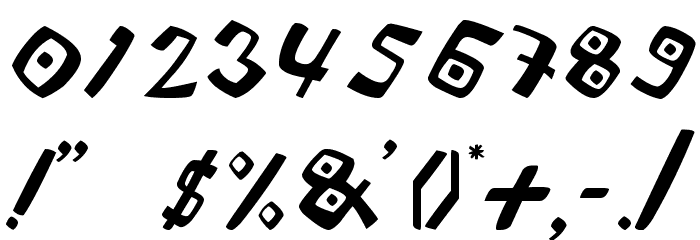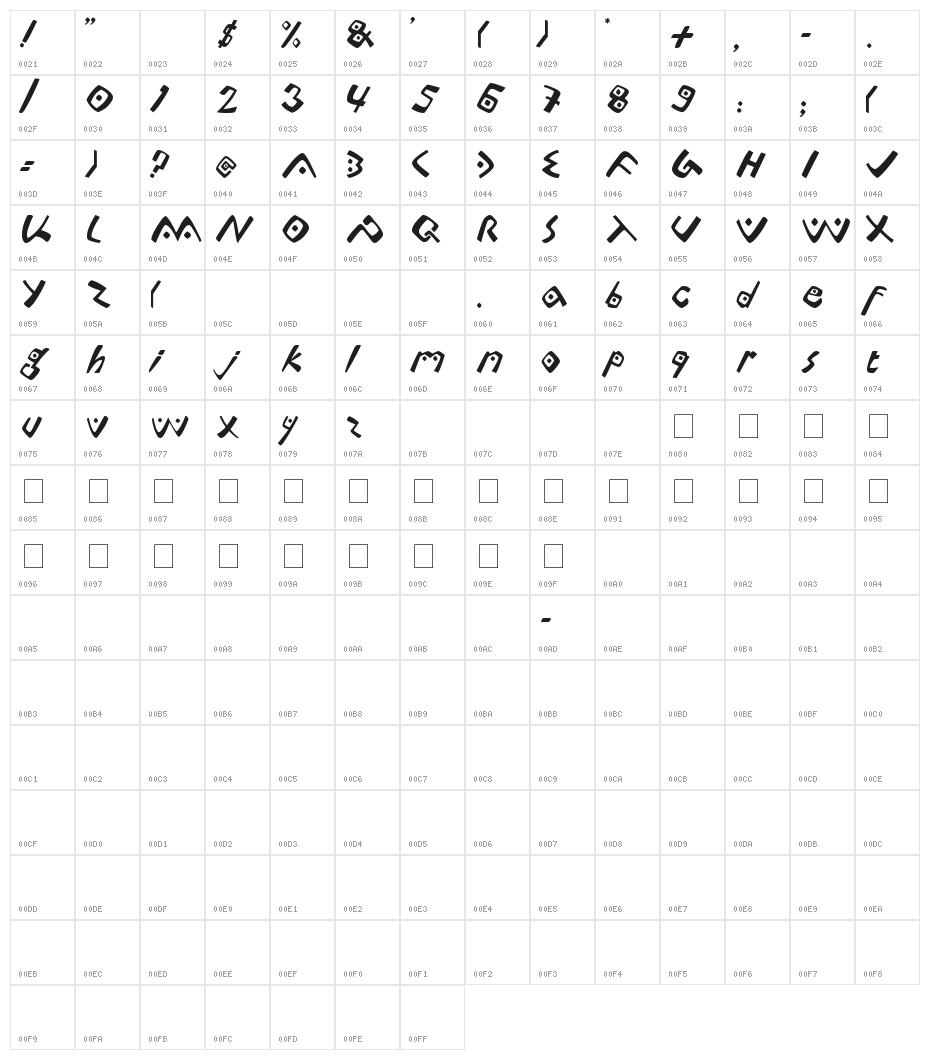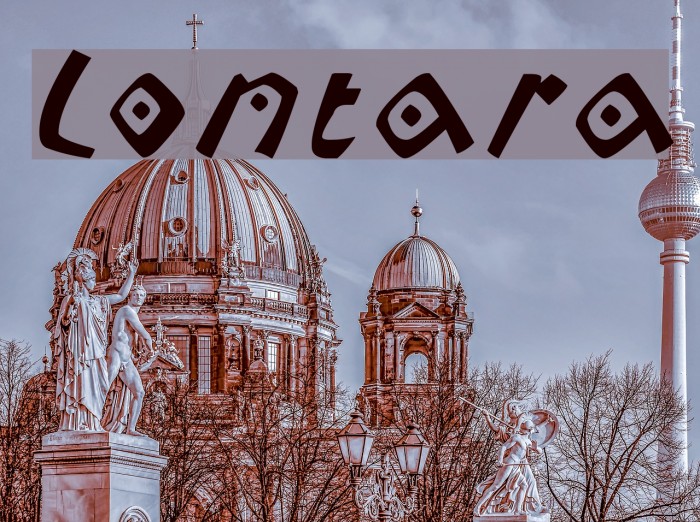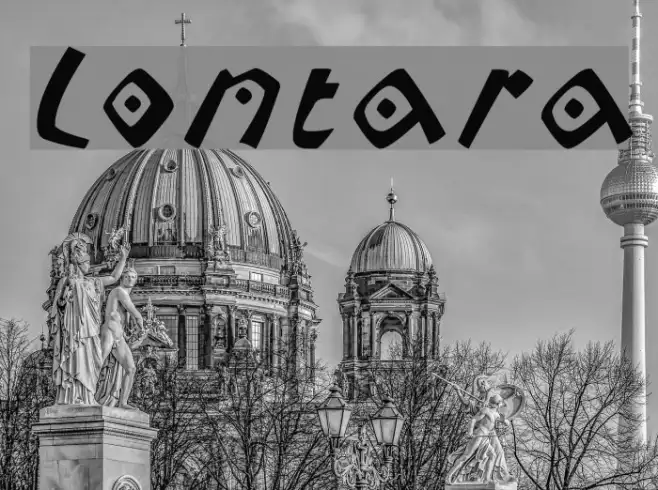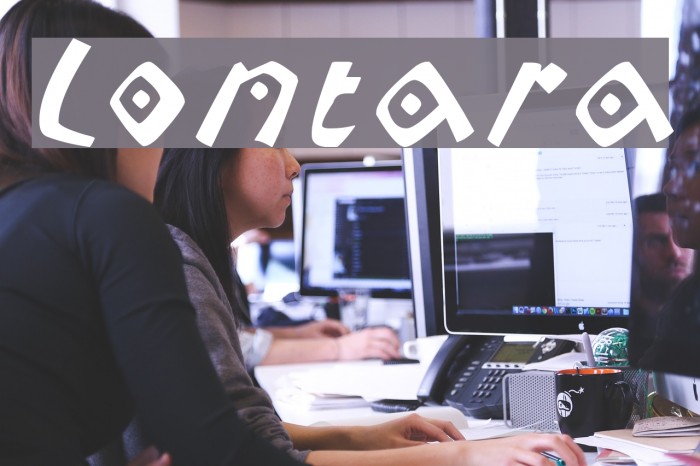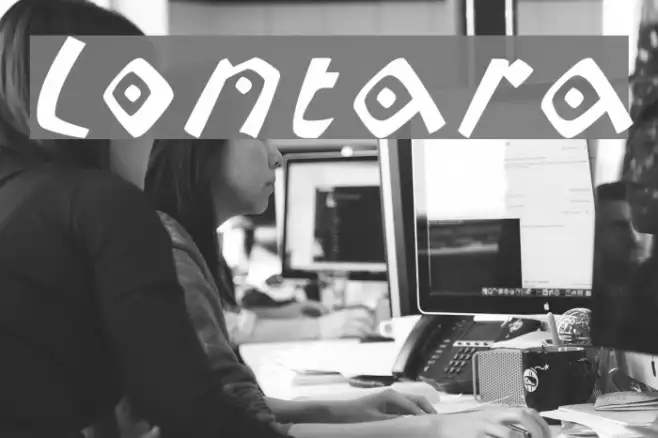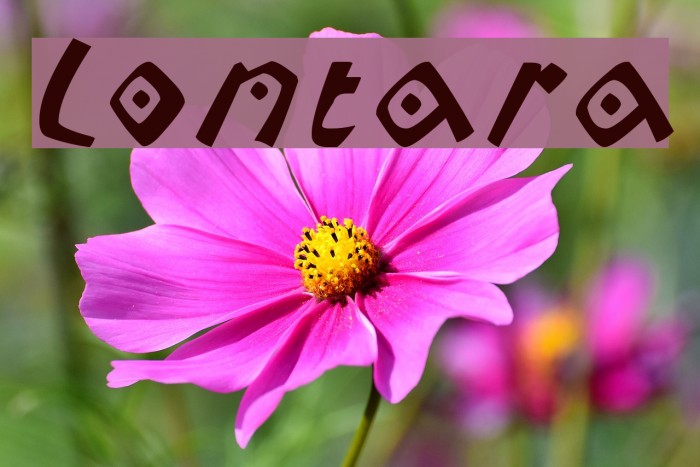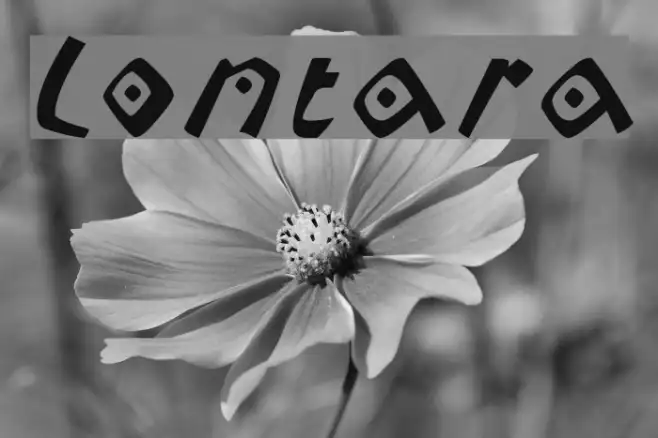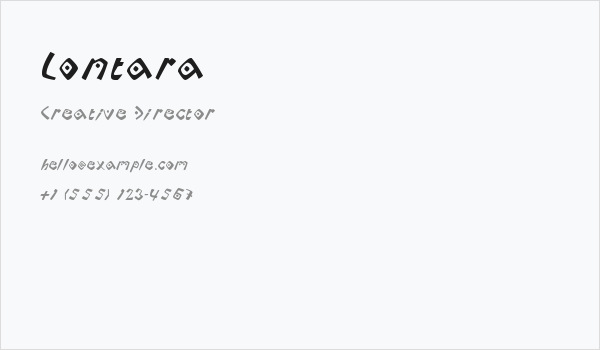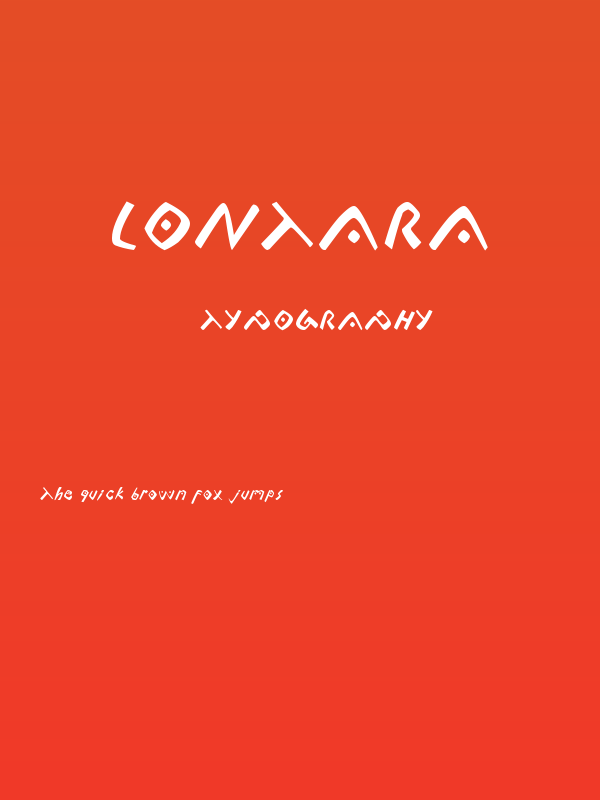
Lontara Font
Lontara Description
This font features a unique and bold design with angular and geometric shapes. The characters are stylized with a modern twist, incorporating sharp edges and distinct angles that give it a futuristic feel. The uppercase and lowercase letters maintain a consistent style, with a slight slant that adds dynamism. Numbers and special characters follow the same design principles, ensuring uniformity across the typeface. The overall appearance is striking and memorable, making it suitable for creative and innovative projects.
| Proposed Projects | Ideal for sci-fi themed designs, modern branding, innovative product packaging, and eye-catching posters. |